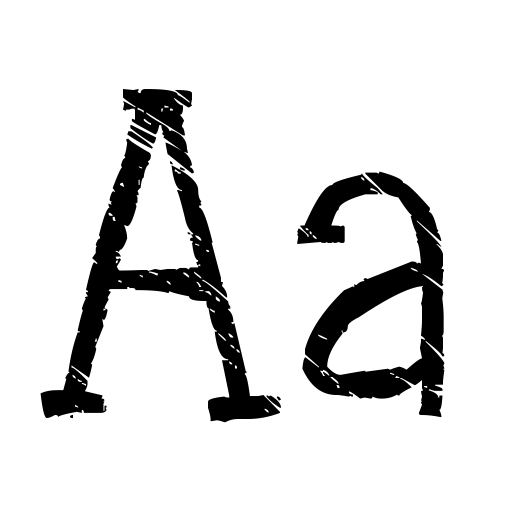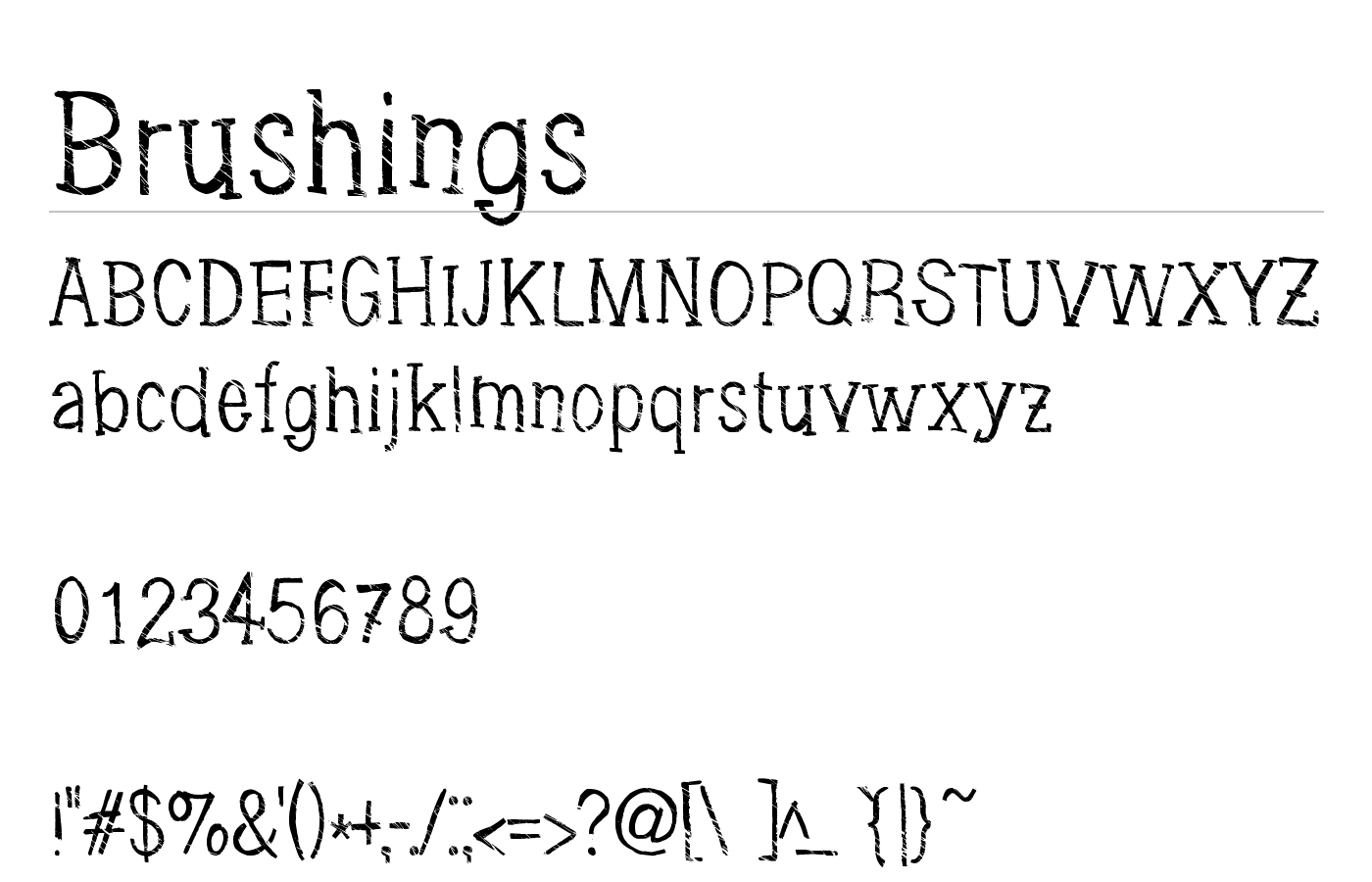
Brushings is a distinctive serif font with a hand-painted, textured look that gives it a casual and artistic charm. Its irregular strokes and rugged details create a lively and organic feel, making it perfect for creative projects, informal branding, and expressive headlines that need personality and warmth. This font works well in designs seeking a handcrafted, rustic vibe with a touch of vintage flair.
Brushings Font
About Brushings Font
| Font family | Brushings Font |
| Designer | Max Infeld - Xerographer Fonts |